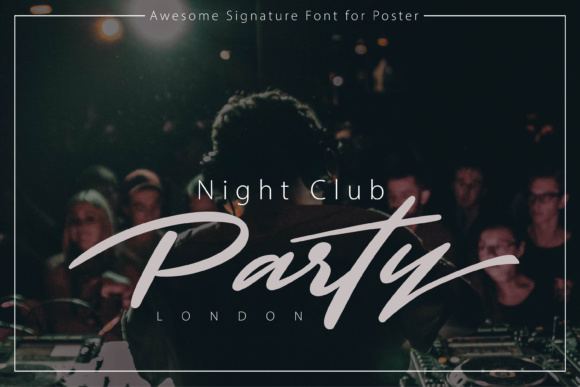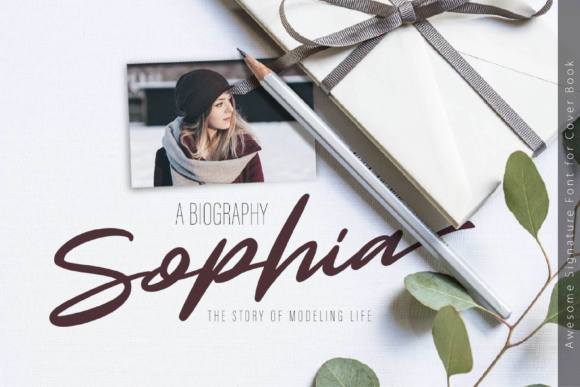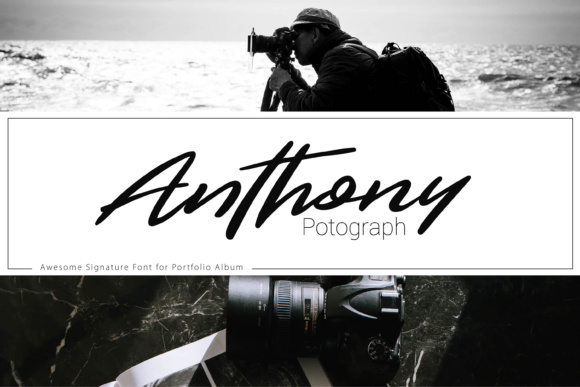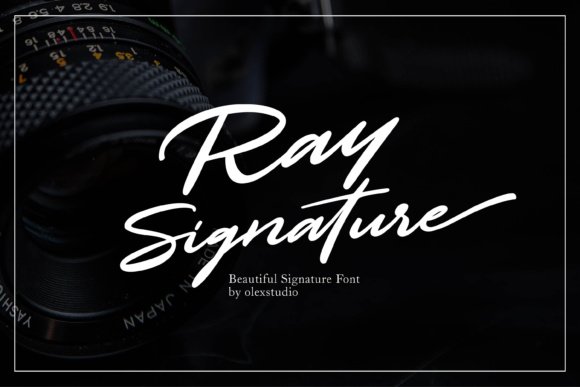
Introduction to Ray Signature Font
Ray Signature is a beautiful, modern, handwritten, signature typeface.
It will look gorgeous on all your designs, wedding invites, branding materials, logo’s, t-shirt, poster, business cards, quotes and all project design other .
Ray Signature Font offers exceptional quality and versatility, making it a valuable addition to your design toolkit. Whether you’re creating for personal projects or commercial use, Ray Signature Font delivers professional results.